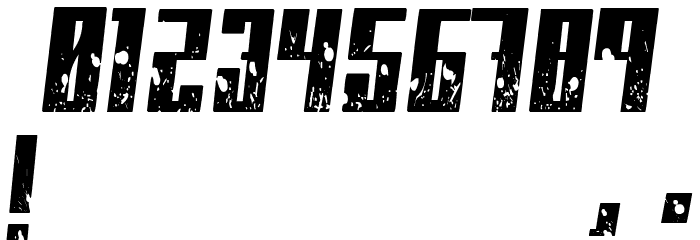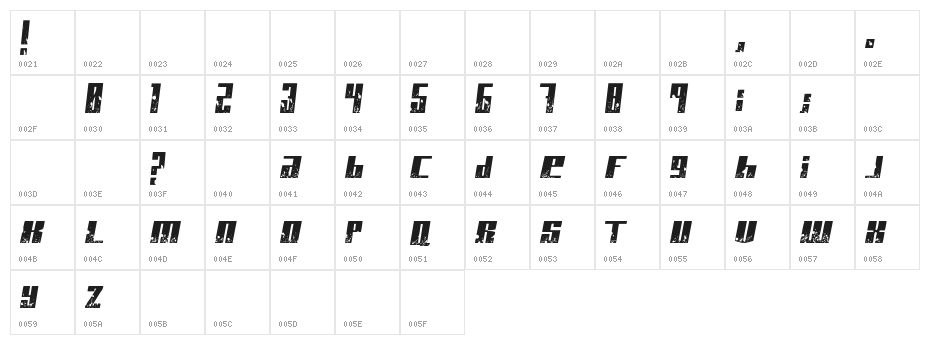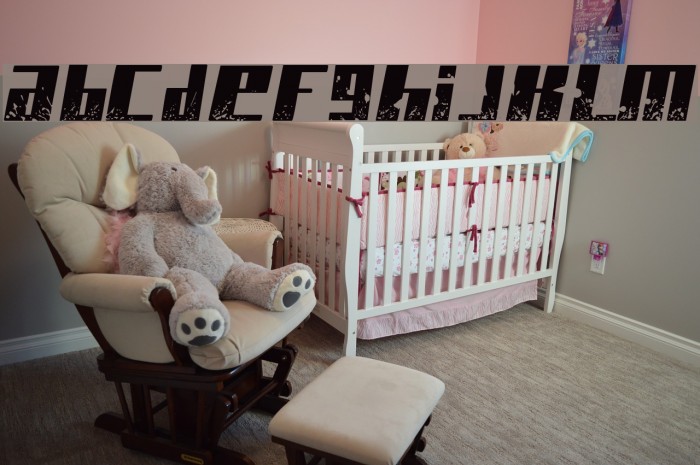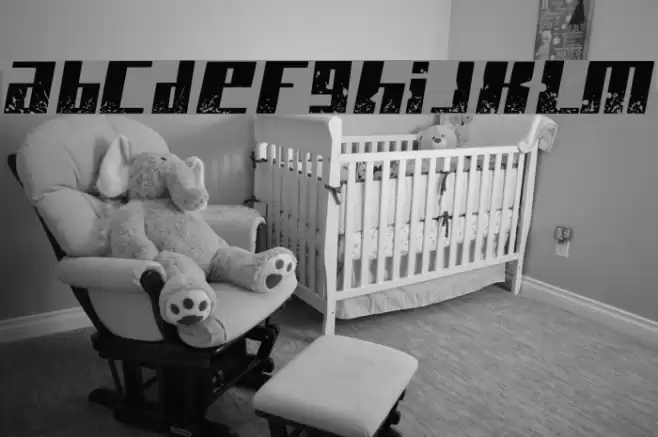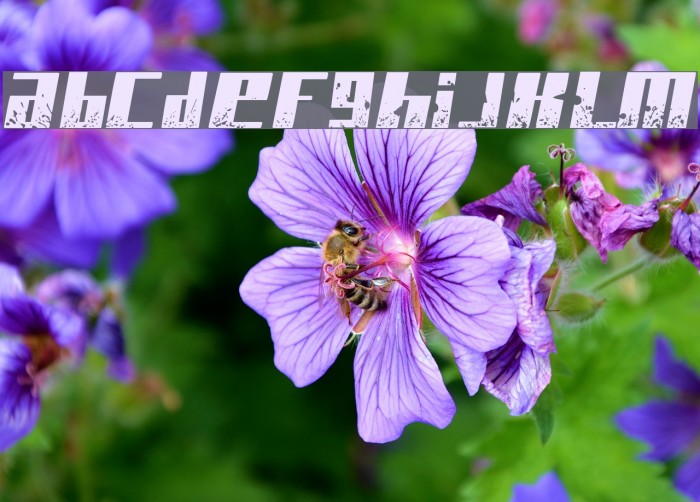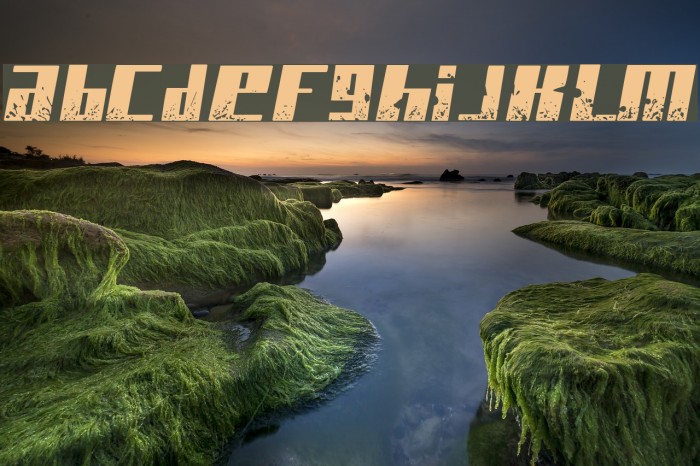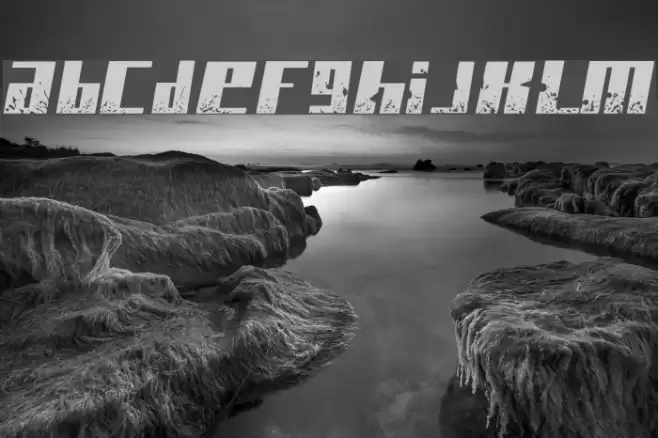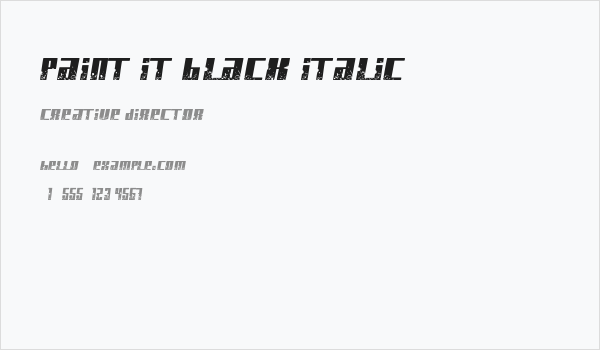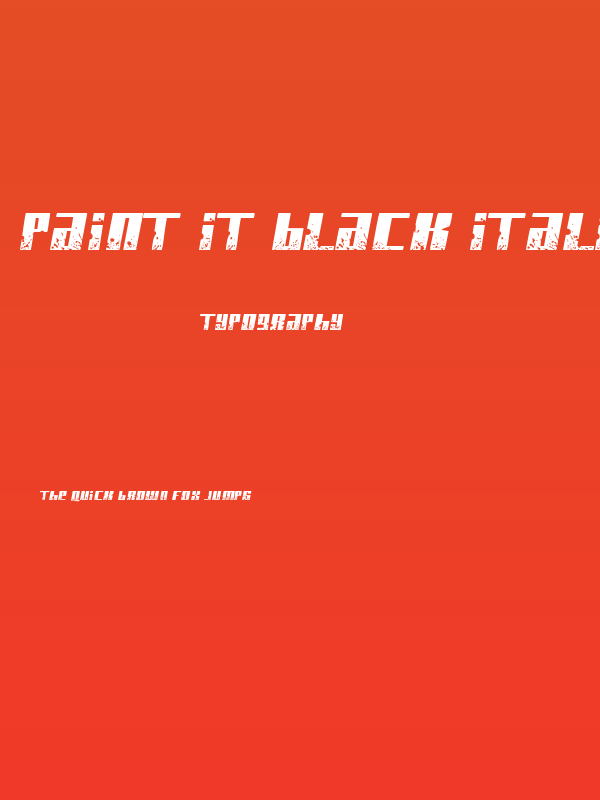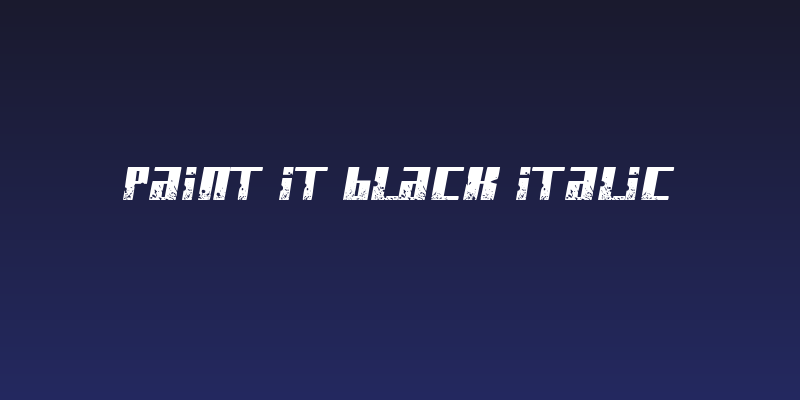
Paint it black Italic Font
Paint it black Italic Description
This font features a bold, italicized style with a distressed, grunge texture that gives it a rugged and edgy appearance. The characters are angular and geometric, with sharp edges and a blocky structure. The distressed effect is prominent, with irregular patches and speckles that create a worn, weathered look. This style is reminiscent of urban street art or graffiti, making it ideal for projects that require a bold and unconventional aesthetic. The uppercase and lowercase letters maintain a consistent style, and the numerals and special characters are equally bold and textured.
| Overall Style | Modern, Grunge |
| Proposed Projects | Ideal for album covers, posters, urban-themed designs, and any project needing a bold, edgy look. |